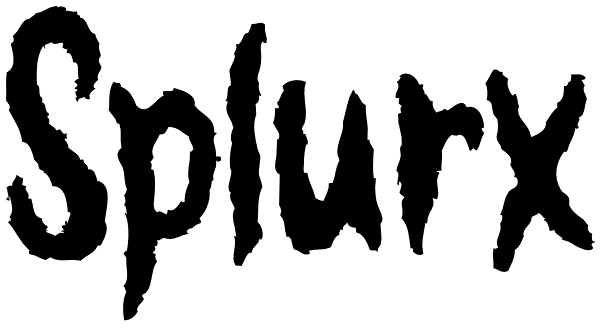
Splurx
A crunchy scripty and curly font. Comes with ligatures for double letters. You will need to use OpenType supporting applications to use the autoligatures.
Splurx Font